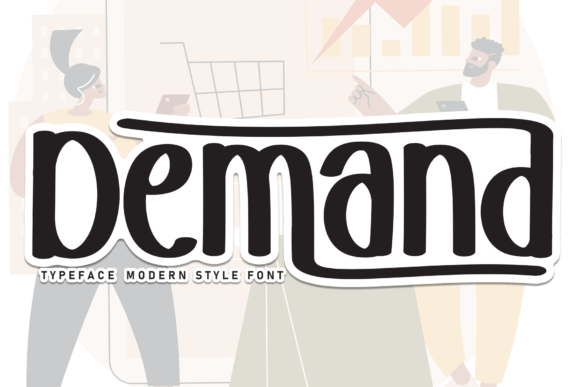
The Perfect Script for Your Next Design Project
Have you ever sat at your desk, staring at a blank page, wondering how to bring your design to life? Maybe you’re planning a wedding and need the perfect invitation font, or perhaps you’re creating a card for a loved one and want to add a touch of whimsy. Whatever your creative endeavor, the right font can make all the difference.
Enter Demands, a sweet and friendly handwritten display font that’s sure to put a smile on your face. This cute and fun font is ideal for writing wedding invitations, cards, or any other design that needs a playful touch. With its unique charm, Demands Font is a valuable addition to any designer’s toolkit, offering endless possibilities for creative expression.
Demand Font Key Features
- Unique Characteristics: Demand Font features a unique blend of modern and geometric elements, making it ideal for use in logos, branding, and digital design.
Demand Font Review
Overall, I think Demand Font has some great features, but it also has some limitations that hold it back. Let’s start with what works well: ✨ I love the modern and sleek aesthetic of this font. It’s perfect for any project that needs a touch of sophistication and elegance. The bold and condensed design makes it stand out from other fonts, and it’s great for headings and titles.
- ✨ Great for headings and titles: Demand Font is perfect for any project that needs a bold and eye-catching heading.
- ✨ Modern and sleek aesthetic: The font’s design is perfect for any project that needs a touch of sophistication and elegance.
- ✨ Versatile: Demand Font can be used in a variety of projects, from business cards to digital interfaces.
However, there are also some limitations: ⚠️ The font may be too bold and overwhelming for certain projects, and it may not be suitable for projects that require a more subtle and understated design. Additionally, the font may not be as readable in smaller sizes, which can be a problem for digital interfaces and other projects where font sizes may be limited.
- ⚠️ May be too bold and overwhelming: Demand Font may be too much for certain projects, and may not be suitable for projects that require a more subtle design.
- ⚠️ Not suitable for small font sizes: The font may not be as readable in smaller sizes, which can be a problem for digital interfaces and other projects.
Overall, I think Demand Font is a solid choice for any project that needs a bold and sophisticated font. However, it may not be the best choice for projects that require a more subtle and understated design.
Tips for Getting the Most Out of Demand Font
For optimal results, use Demand Font for titles, headings, and other attention-grabbing text. Experiment with different font sizes and colors to create visual hierarchy.
Demand Font is ideal for:
- Marketing materials (brochures, flyers, posters)
- Brand identity (logos, business cards, letterheads)
- Web design (headers, footers, navigation menus)